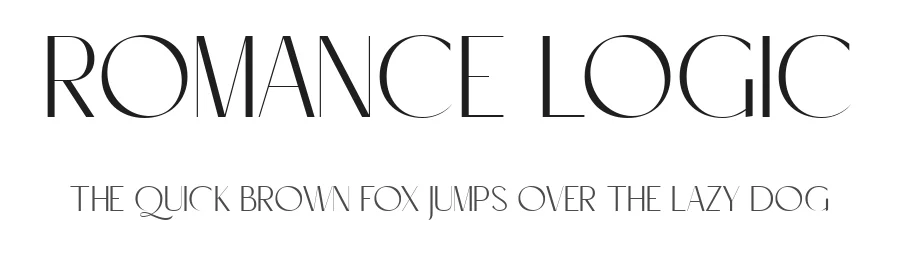
About Cafgone Font
Cafgone Specifications
| Font Family | Cafgone |
| Full Name | Cafgone Regular |
| Glyph Count | 431 glyphs |
| PostScript Name | Cafgone-Regular |
| Designer | Wildan Suprian Syah |
Cafgone supports 268 languages.
Cafgone Font is a versatile sans-serif font that works for both headings and body text. Pair it with a contrasting serif or slab serif font to add visual interest and a clear distinction between titles and body copy.
Cafgone Font
by Wildan Type